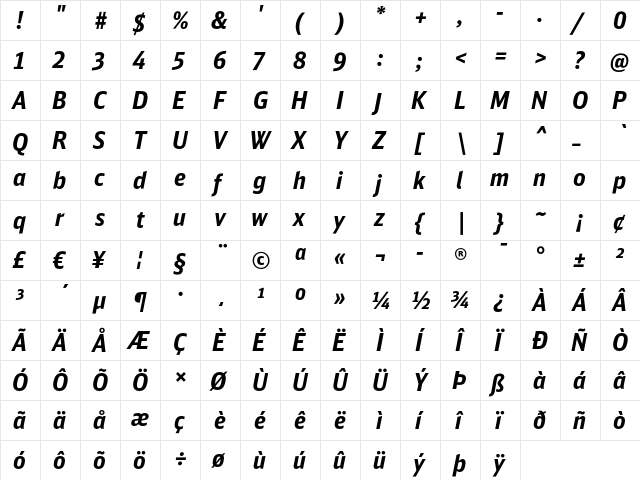
DB Sans Cond Altern Bold Italic Font Preview
Design Context for DB Sans Cond Altern Typeface
DB Sans Cond Altern takes a measured approach to typography — its balanced proportions and neutral character make it a reliable workhorse for both digital and print work. Its italic angle brings a sense of urgency and motion to the letterforms. The heavy weight commands attention and anchors typographic hierarchies. Its narrow stance lets it pack a punch even in space-constrained designs.